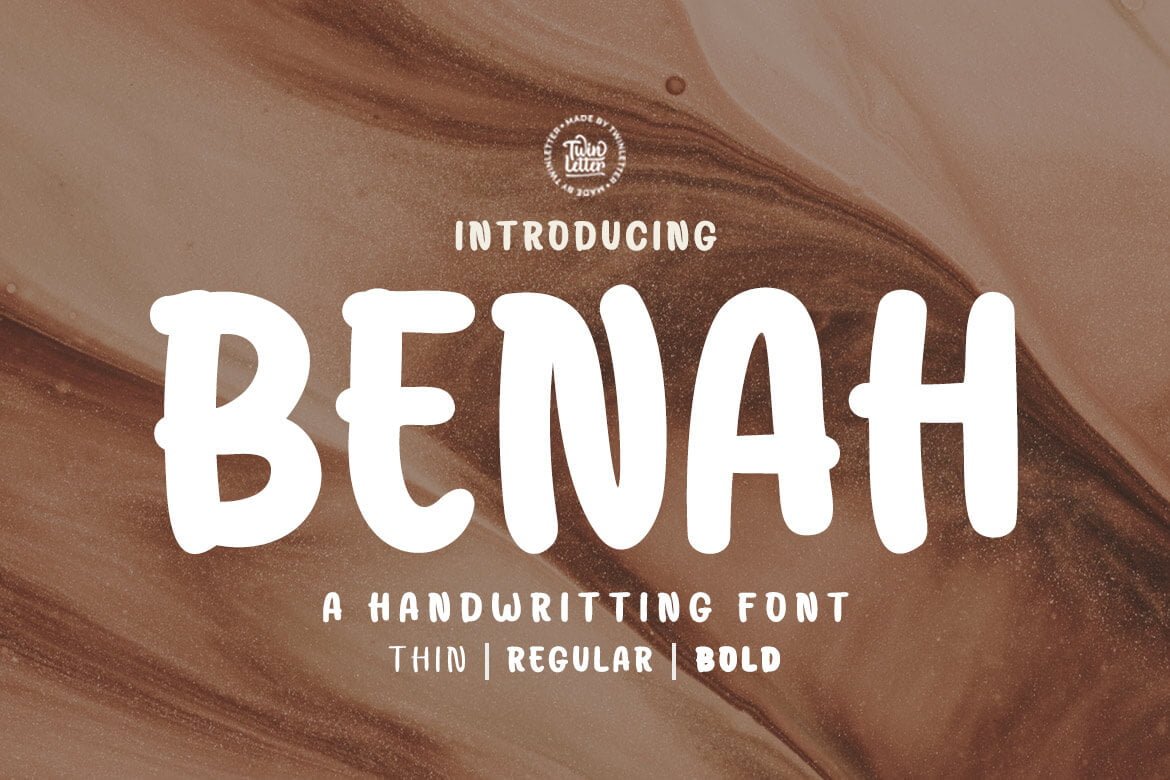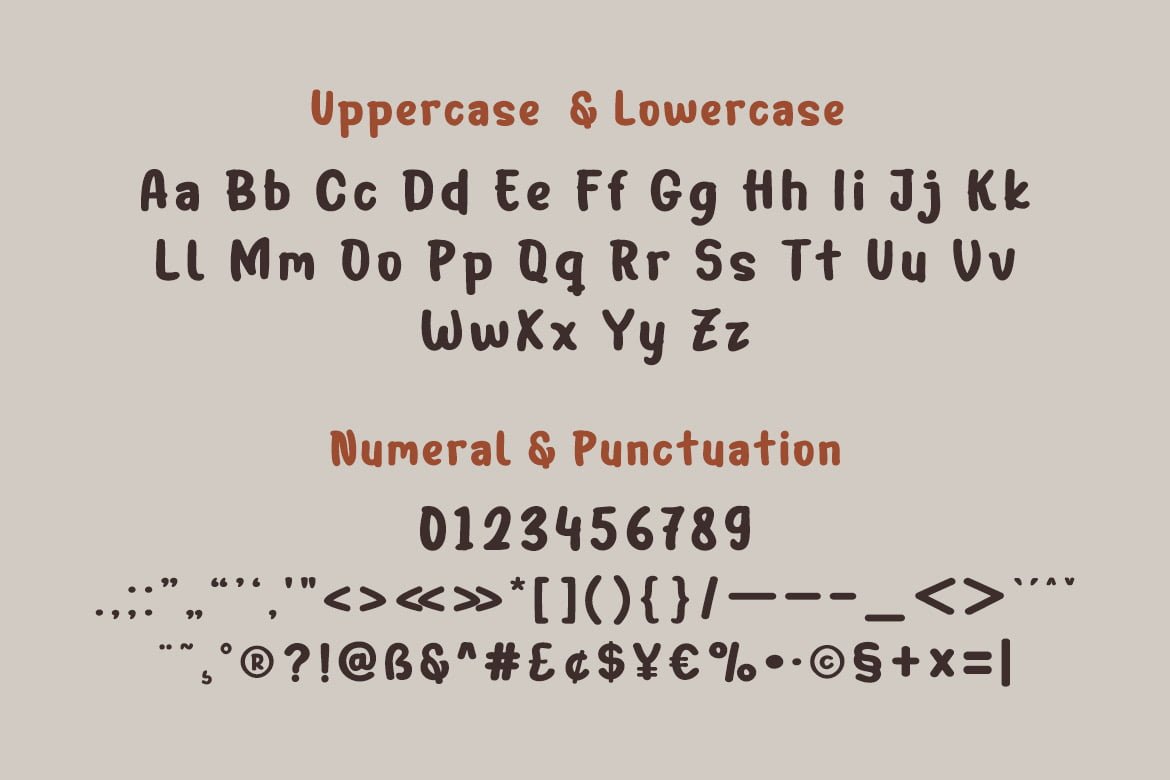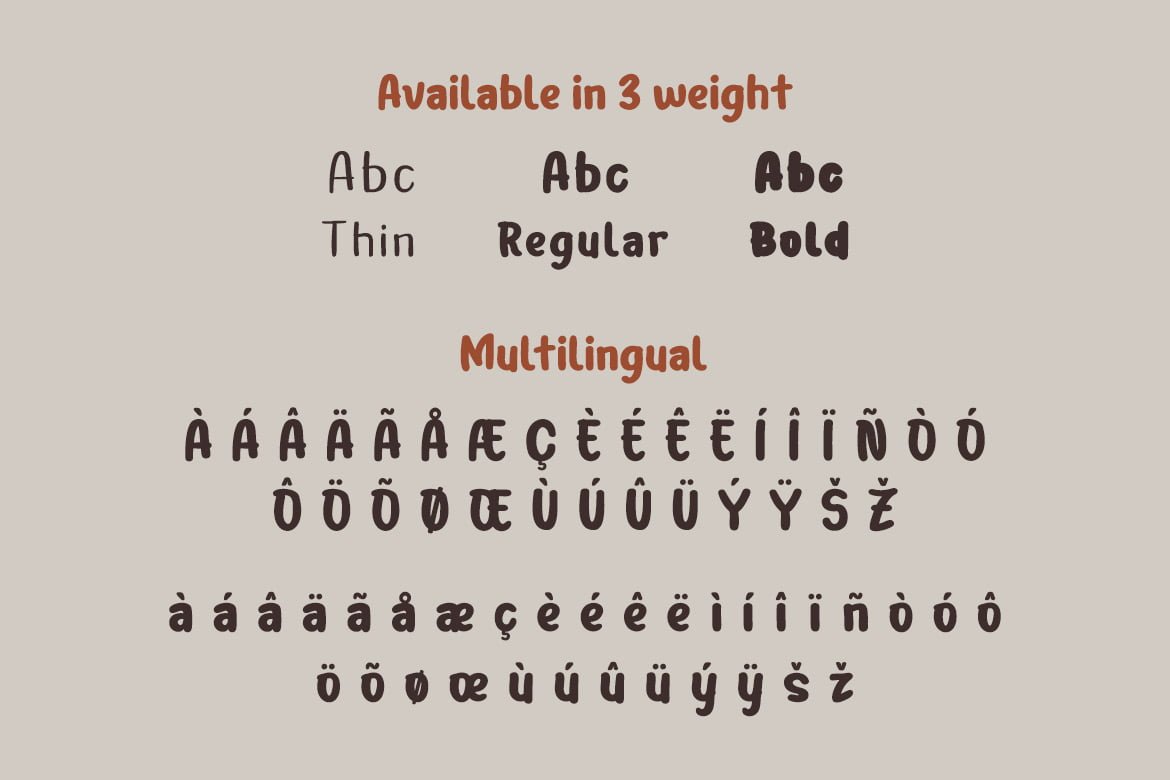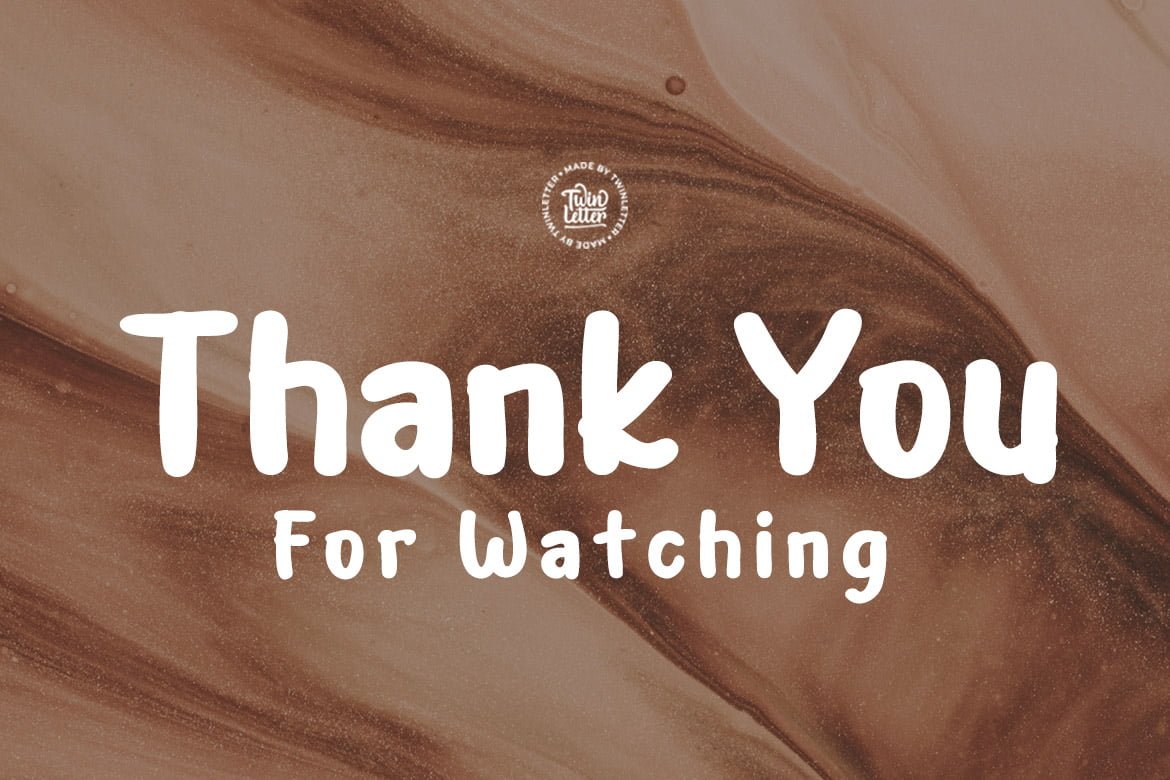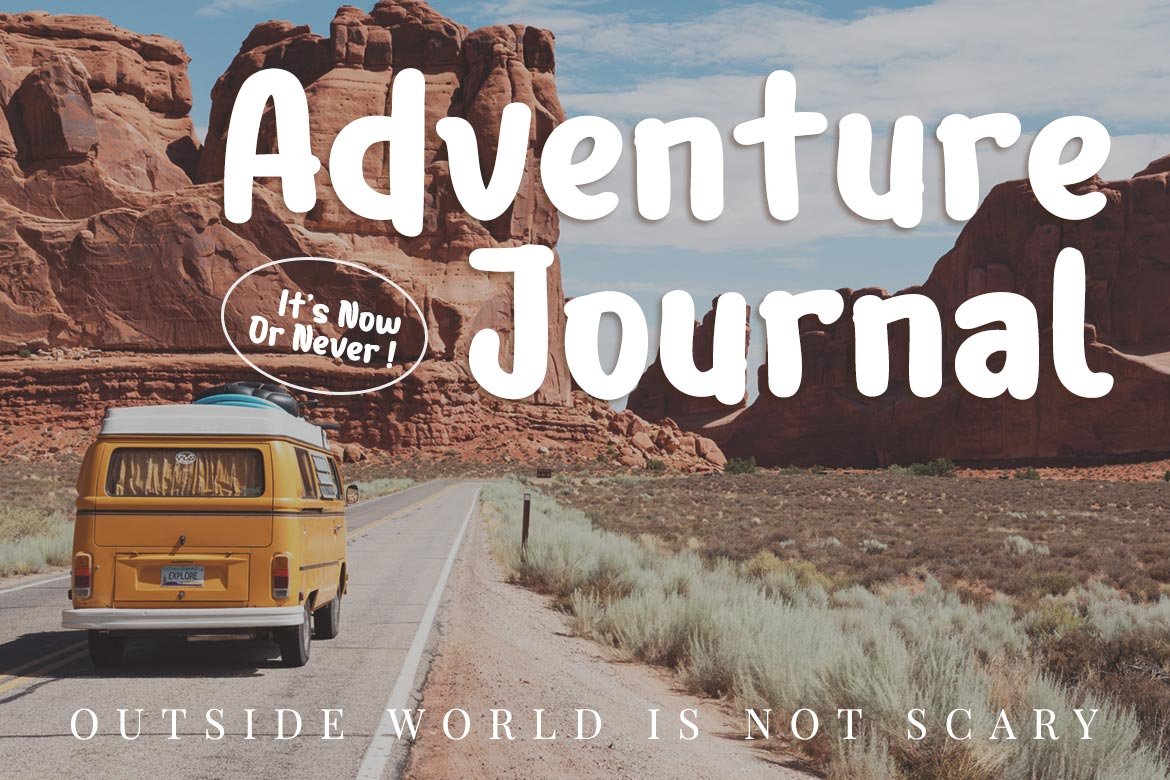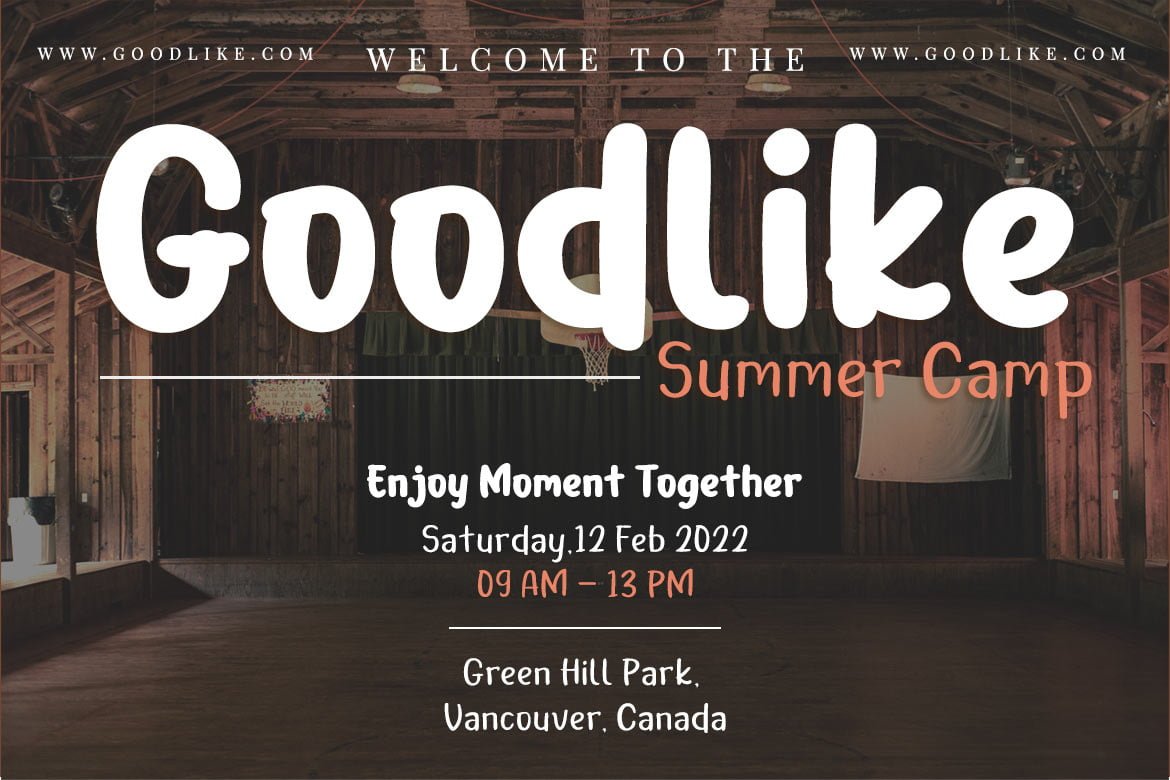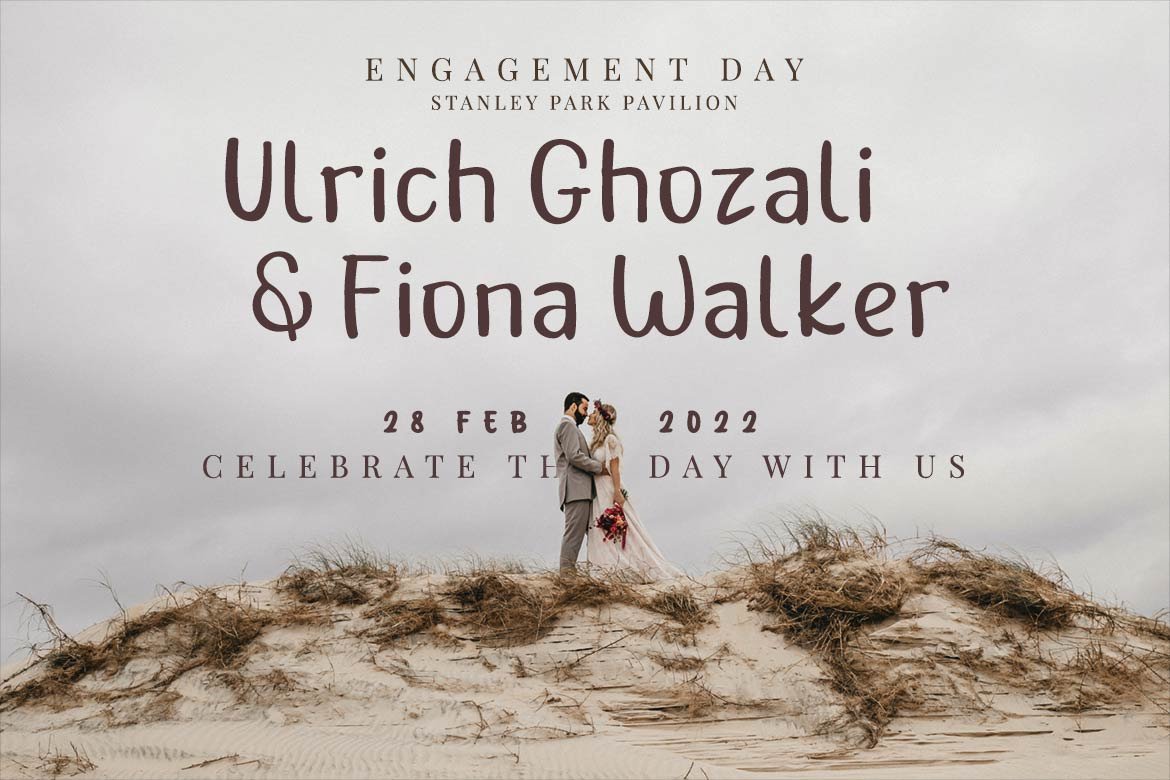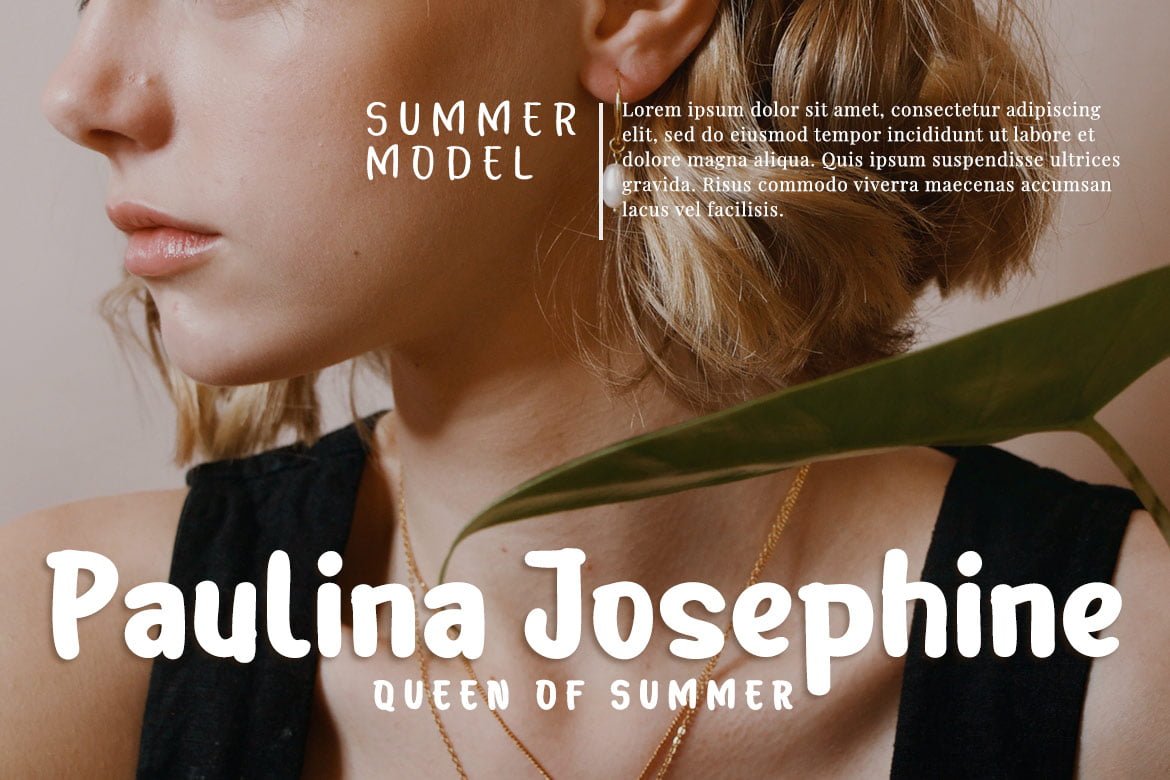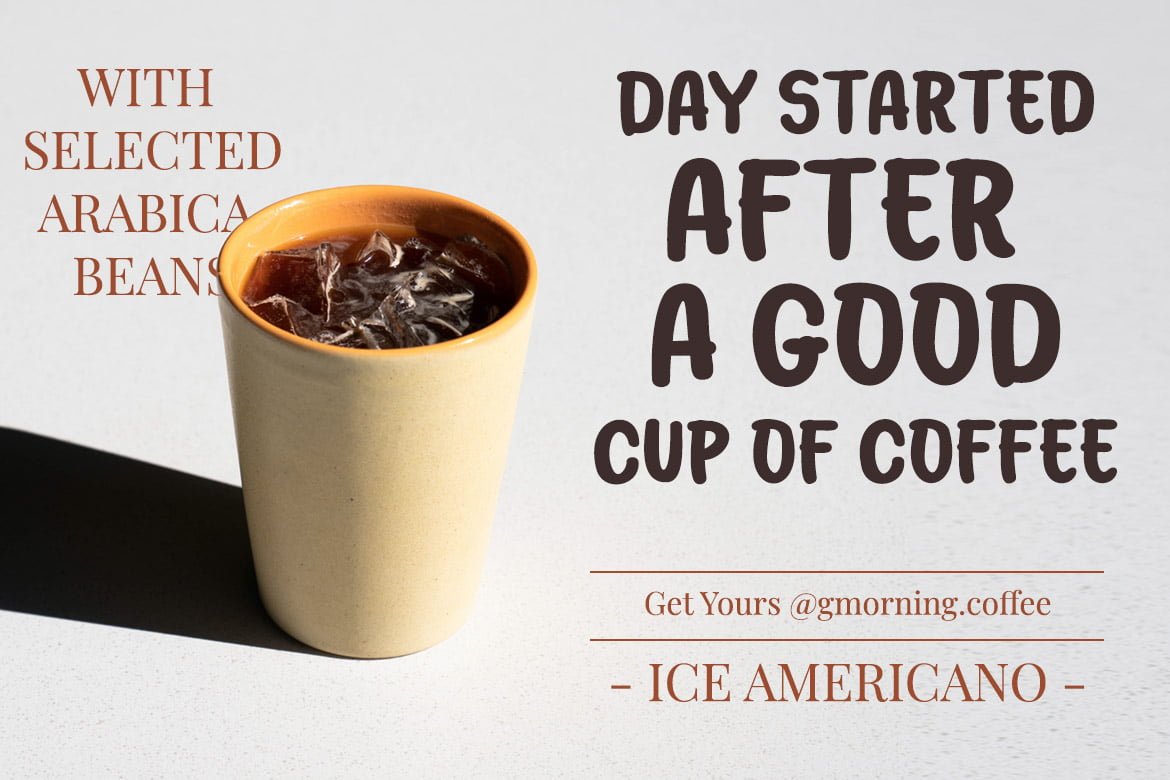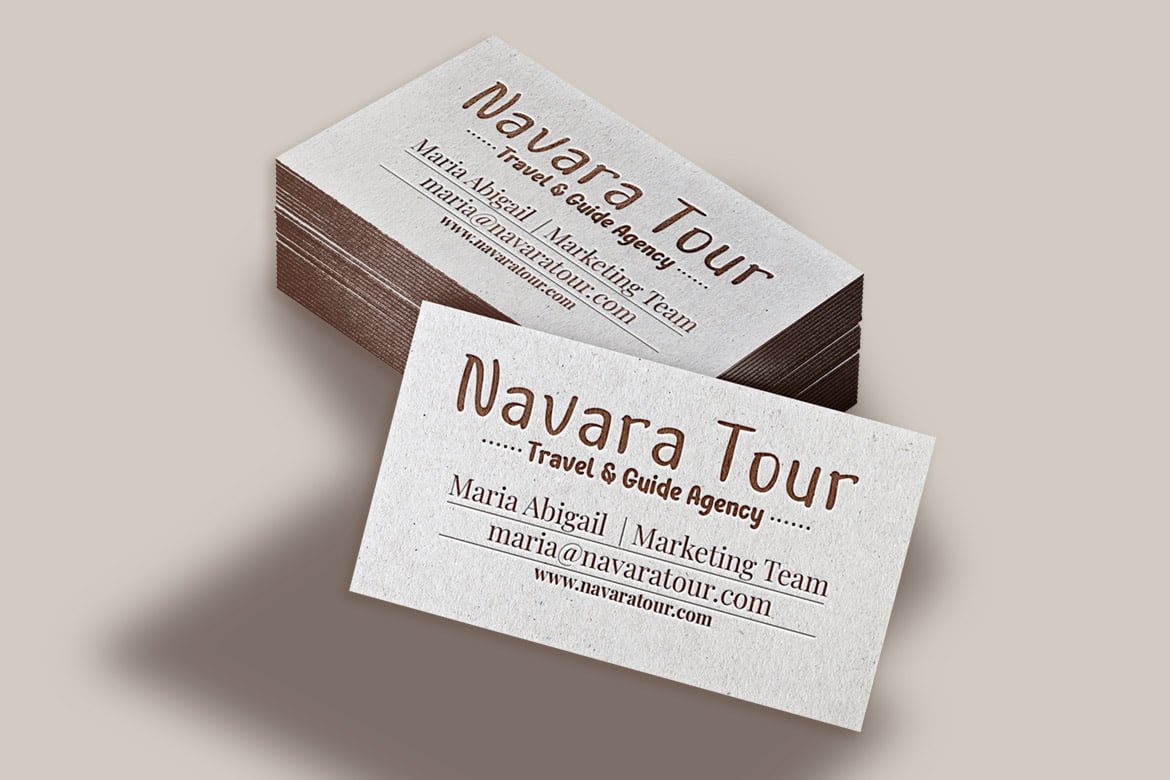
- Benah
Benah is a beautiful and exotic handwritten typeface that may be used for a variety of applications. This typeface will make your graphic look harmonious and simple, allowing you to align and maximize the appearance of your project to be the most noticeable among those accessible.
This font is designed with a natural touch of handwriting which is refined to create a portion and composition that suits your needs. So this font is suitable for craft, children’s writing, adventure posters, food banner titles, wedding invitations, product packaging logos, quotes, social media page covers, furniture banner headlines, book covers, and much more.
- Fonts include multilingual support for; Afrikaans, Albanian, Croatian, Czech, Danish, Dutch, English, Estonian, Finnish, French, German, Hungarian, Italian, Norwegian, Polish, Portuguese, Slovak, Slovenian, Spanish, Swedish